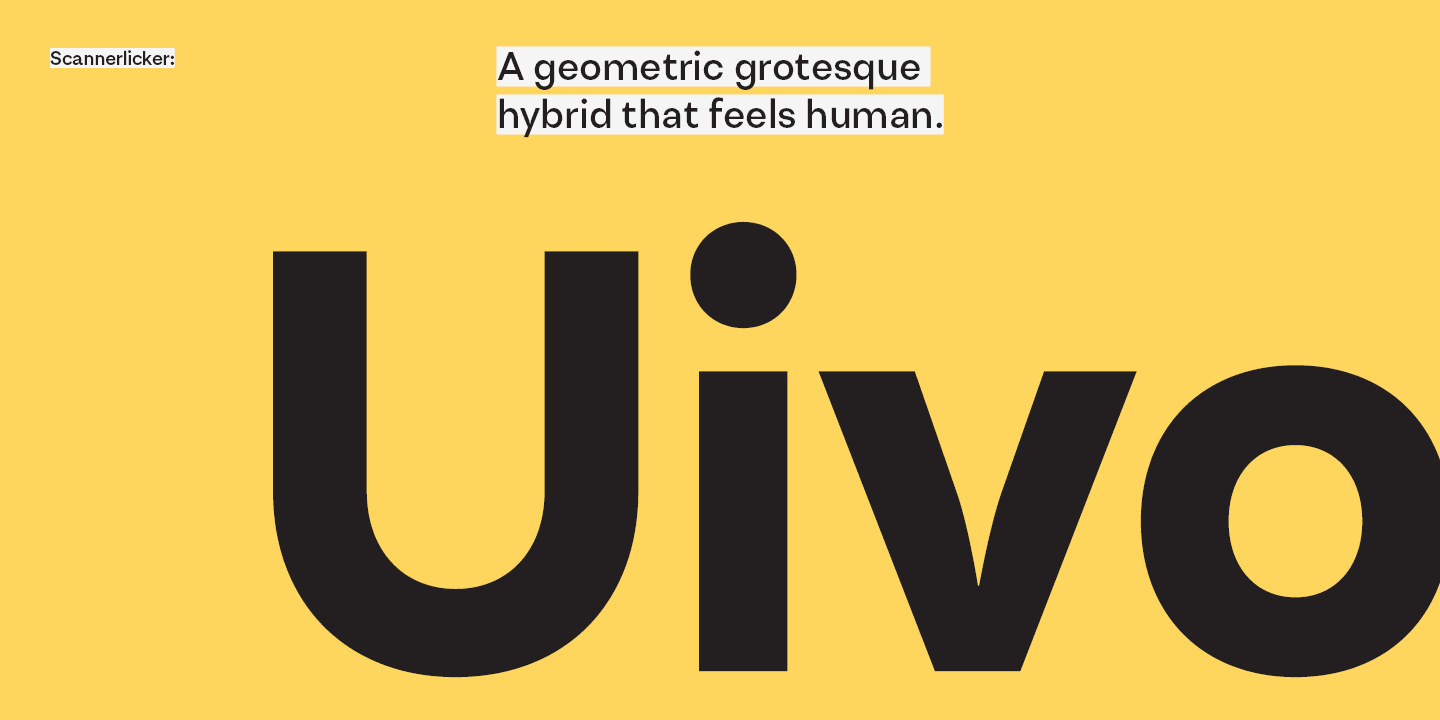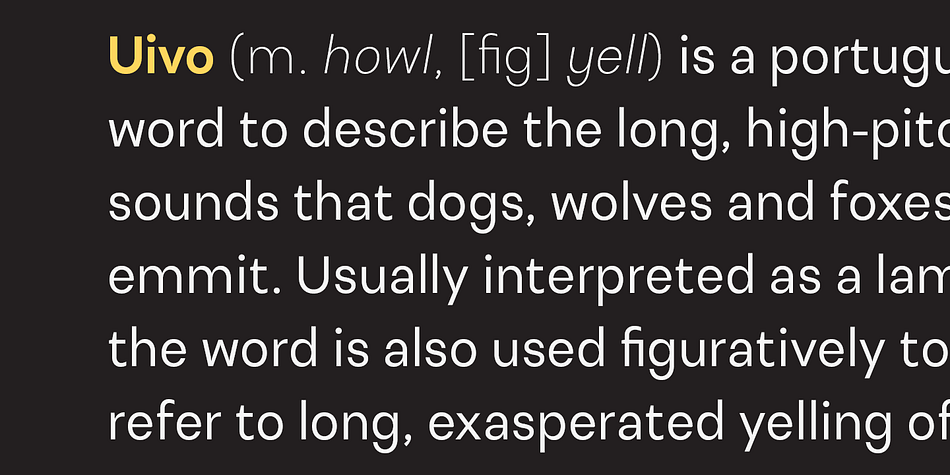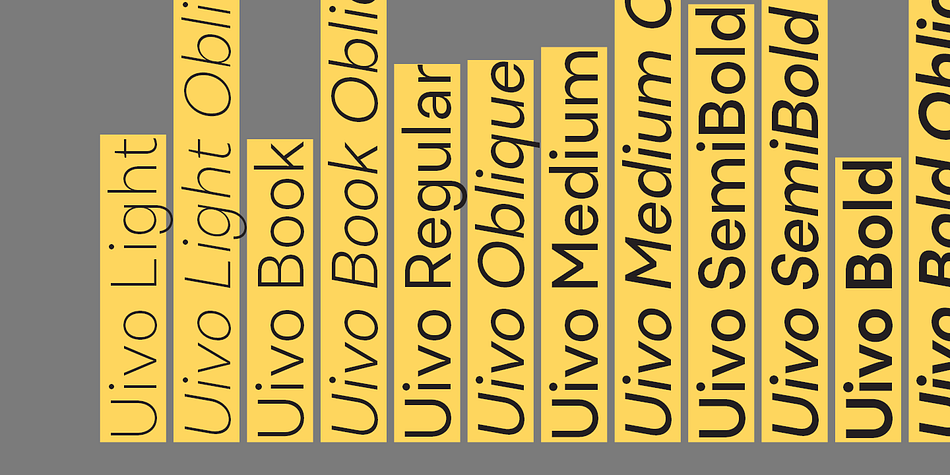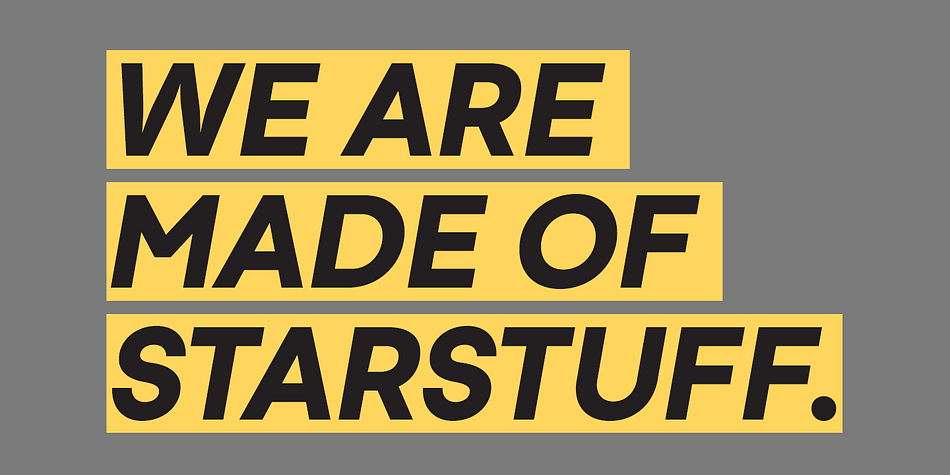
Designed by Fábio Martins, Uivo is a sans serif font family. This typeface has fourteen styles and was published by Scannerlicker.
Uivo is a contemporary grotesque sans with a geometric flair. Versatile, but without the coldness of the genre.
Built to be interesting in many sizes, from text to display, Uivo flows easily in web, editorial, corporate, identity and graphic work.